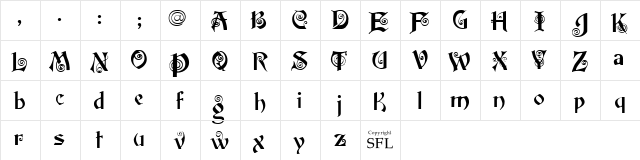
Potsdam Regular
Design Context for Potsdam Typeface
Potsdam is a composed and adaptable typeface that performs quietly and consistently across a wide range of design contexts.